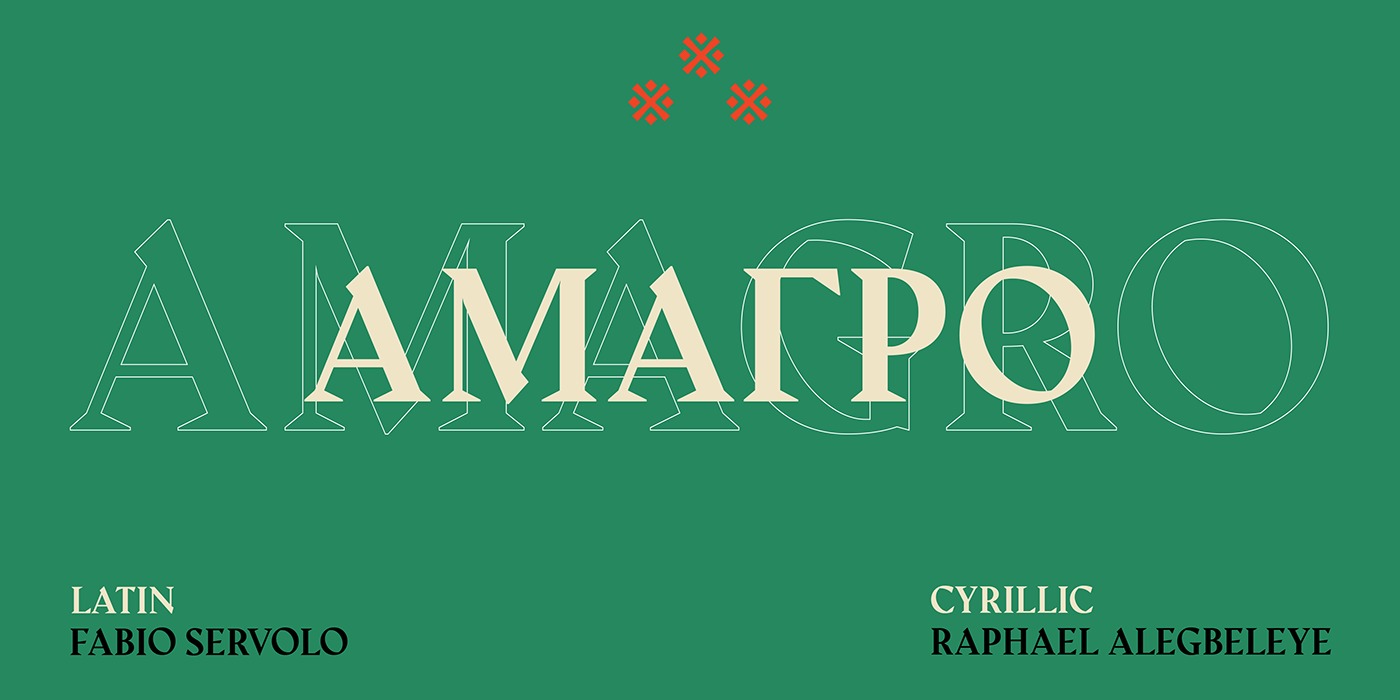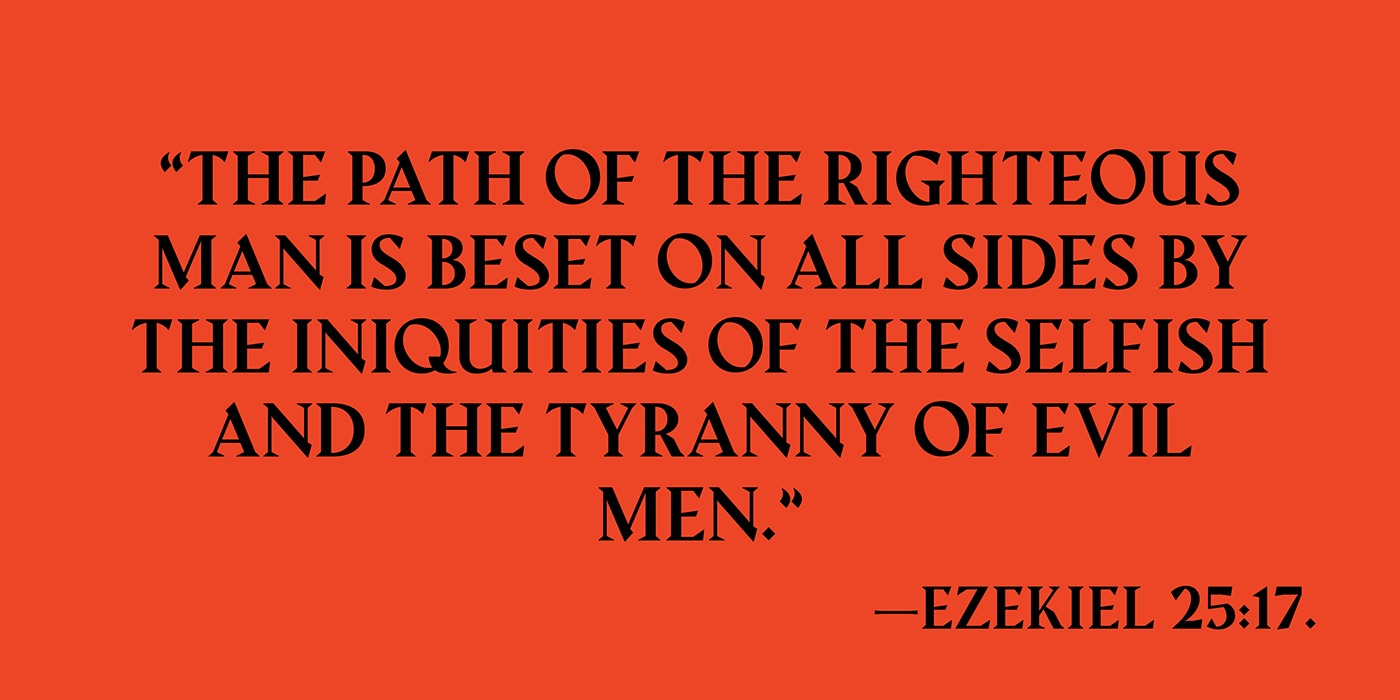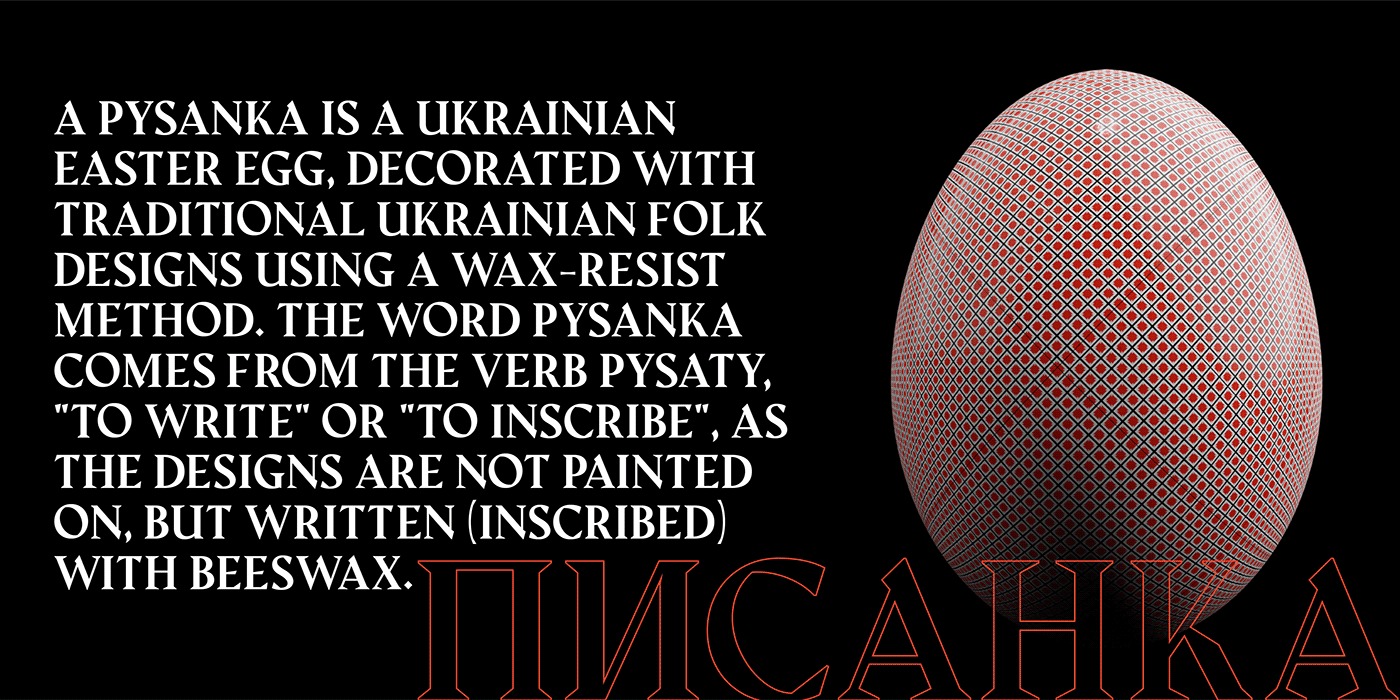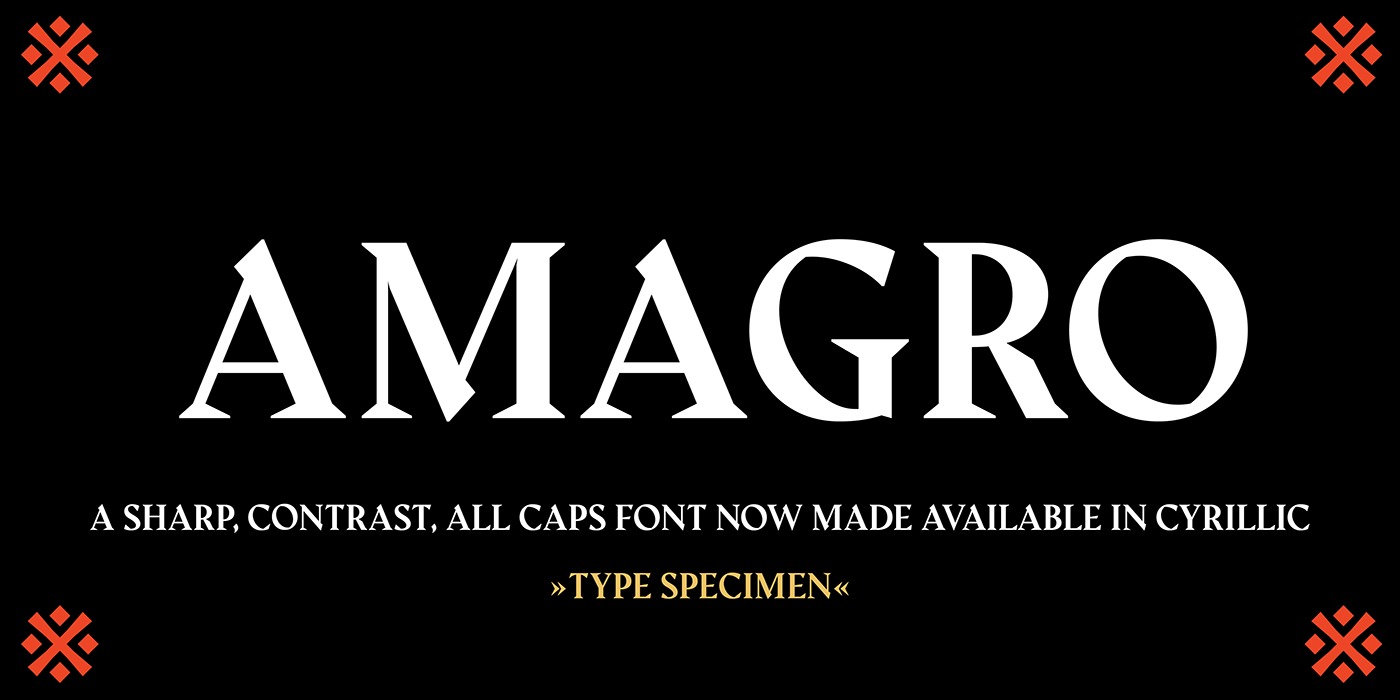
Amagro Serif Font
It’s a fancy sharp serif font designed by Fabio Servolo and Inspired by the Albertus typeface. It comes in uppercase, number, punctuation, symbols and supports both western and eastern Latin scripts. Use it for the editorial office, glossy magazines and articles. The font will give to brands and logos of reliability, and use in the text will help add a sense of high cost.